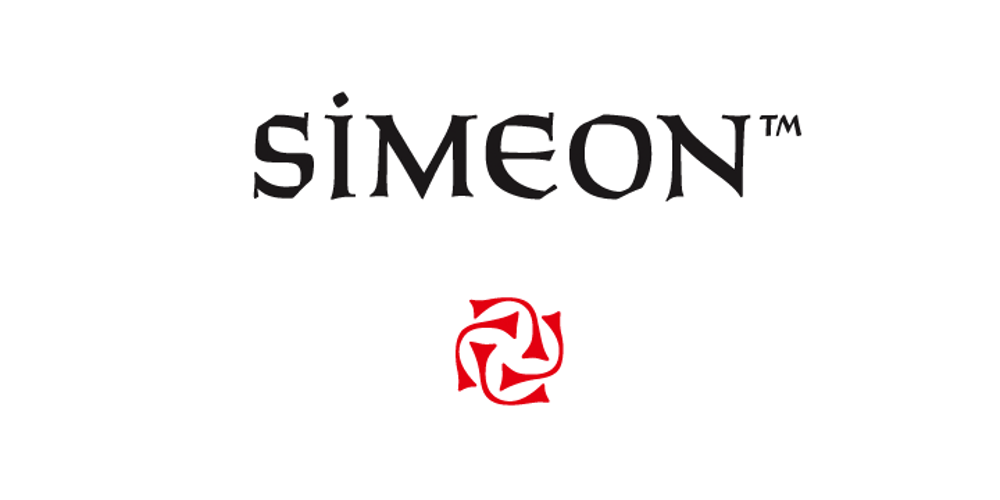
Simeon Font Family was designed by Günter Gerhard Lange, Andreas Seidel and published by astype. Simeon contains 1 styles and family package options. Simeon is well suited for setting an short and medium amount of text with an historic impression. OpenType features: – over 650 glyphs – Central European faces – stylistic alternates and historical forms – ornaments, signs, zodiac, symbols – proportional & mediaeval numerals – numerators, denominators and fractions – Roman numerals